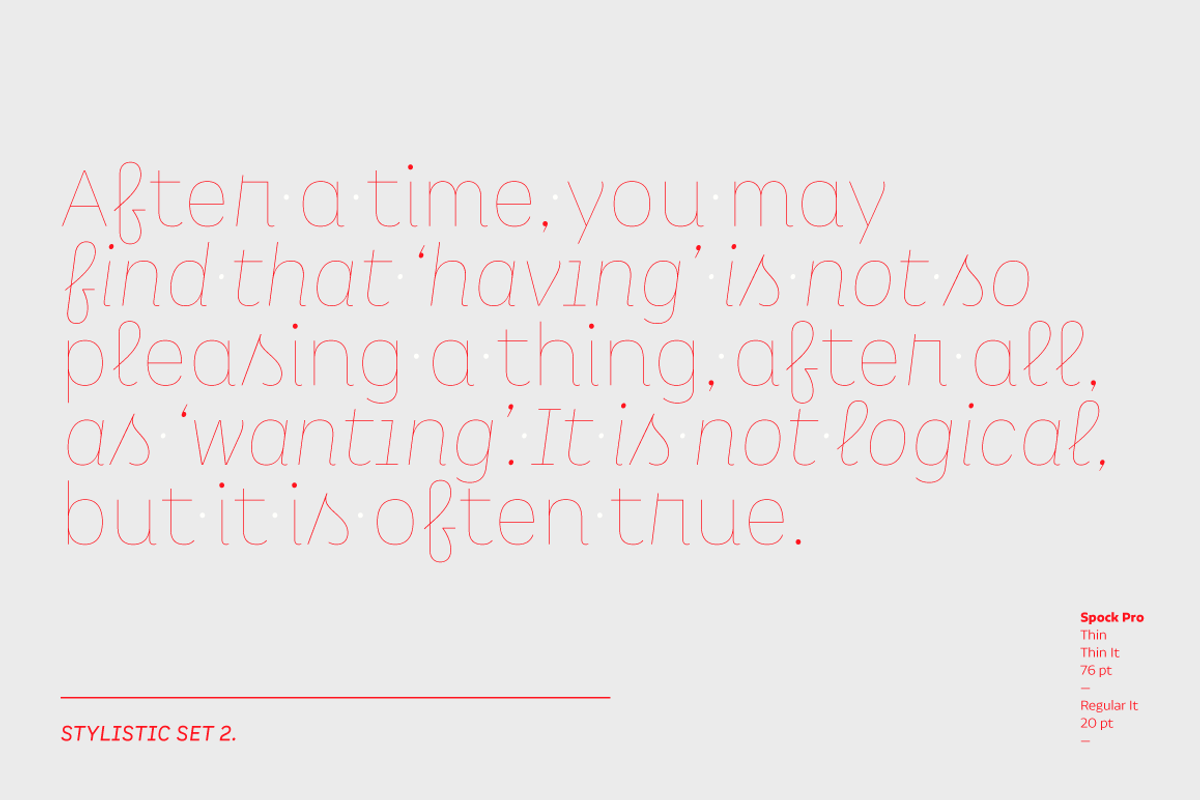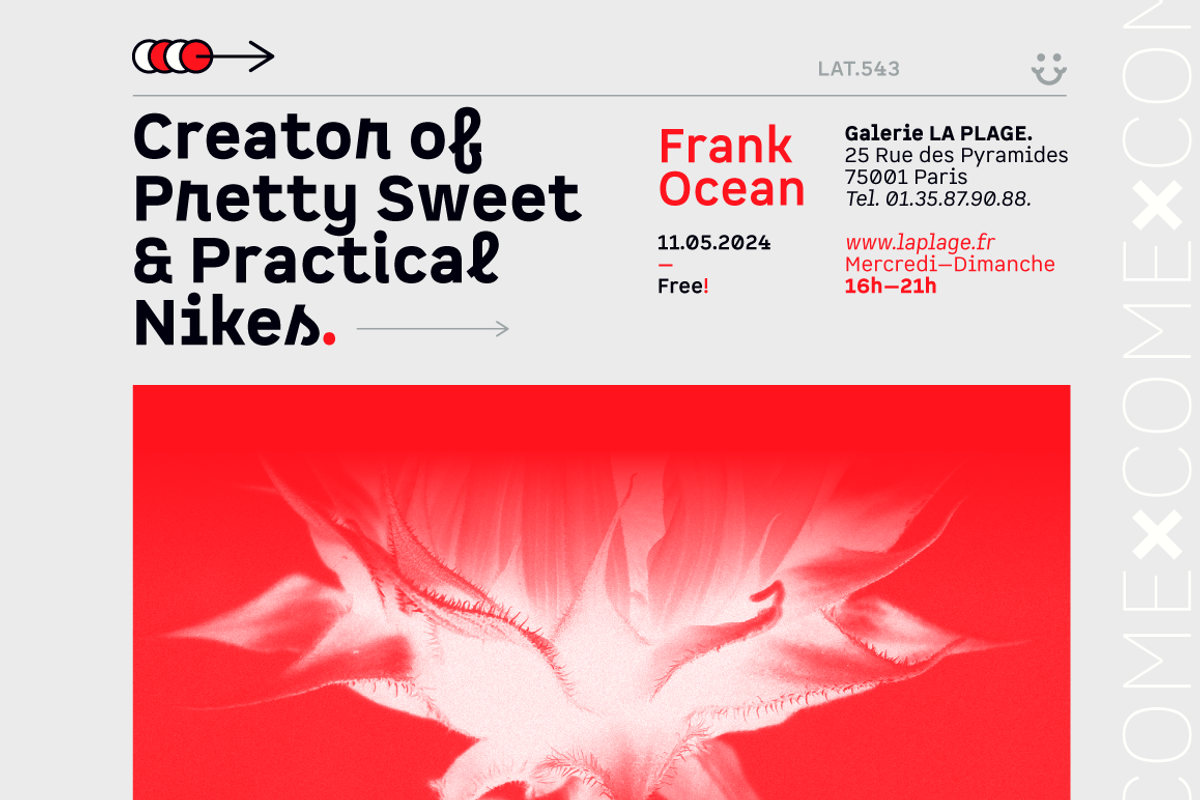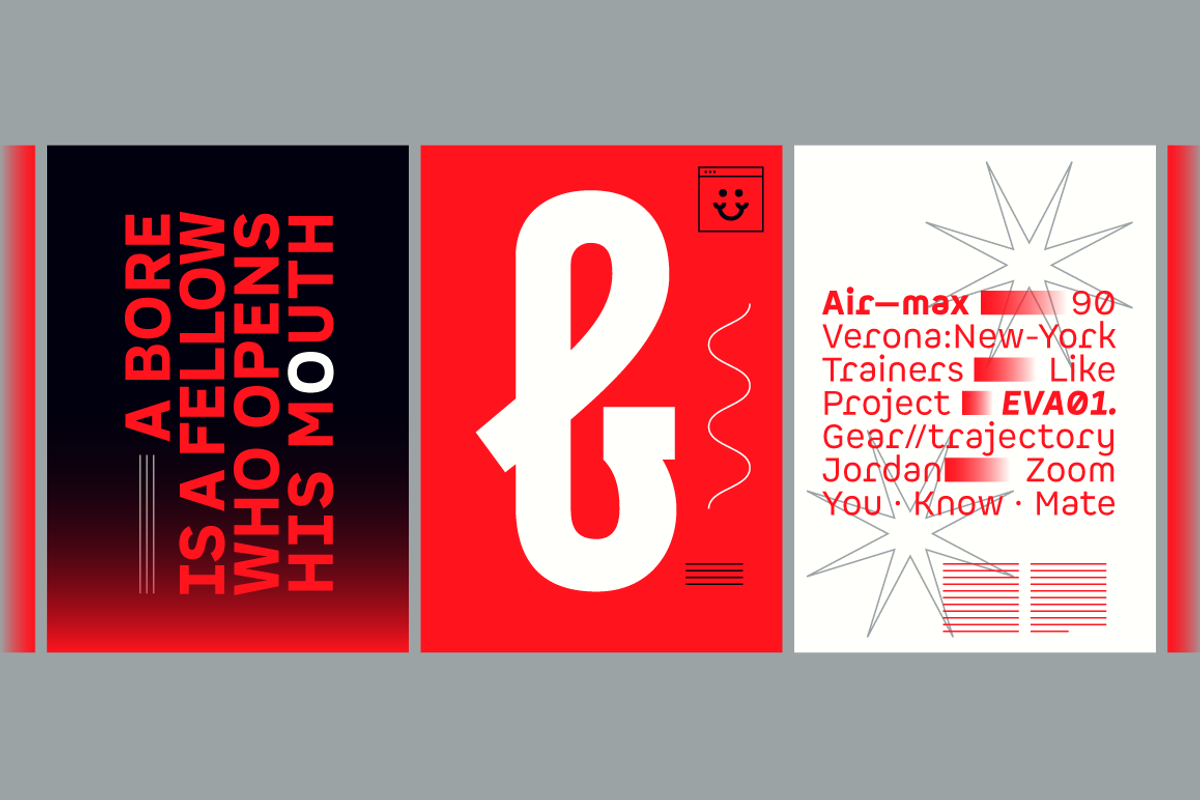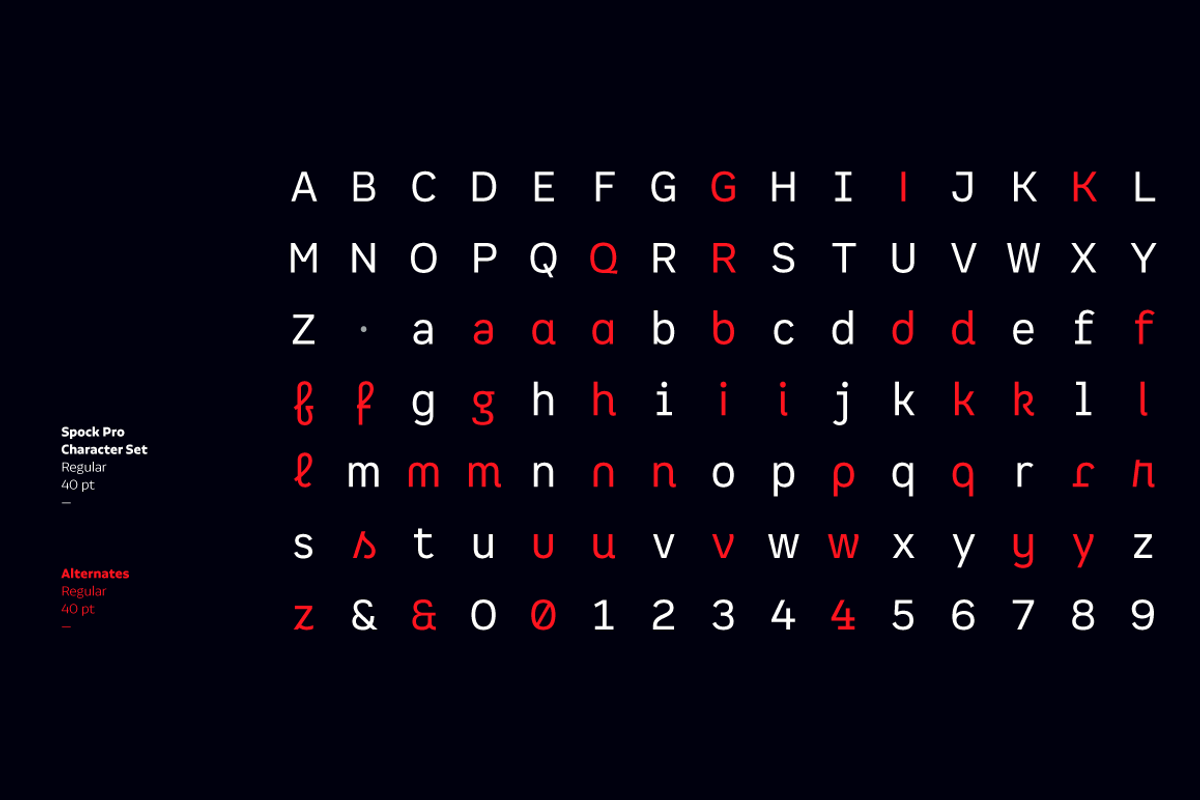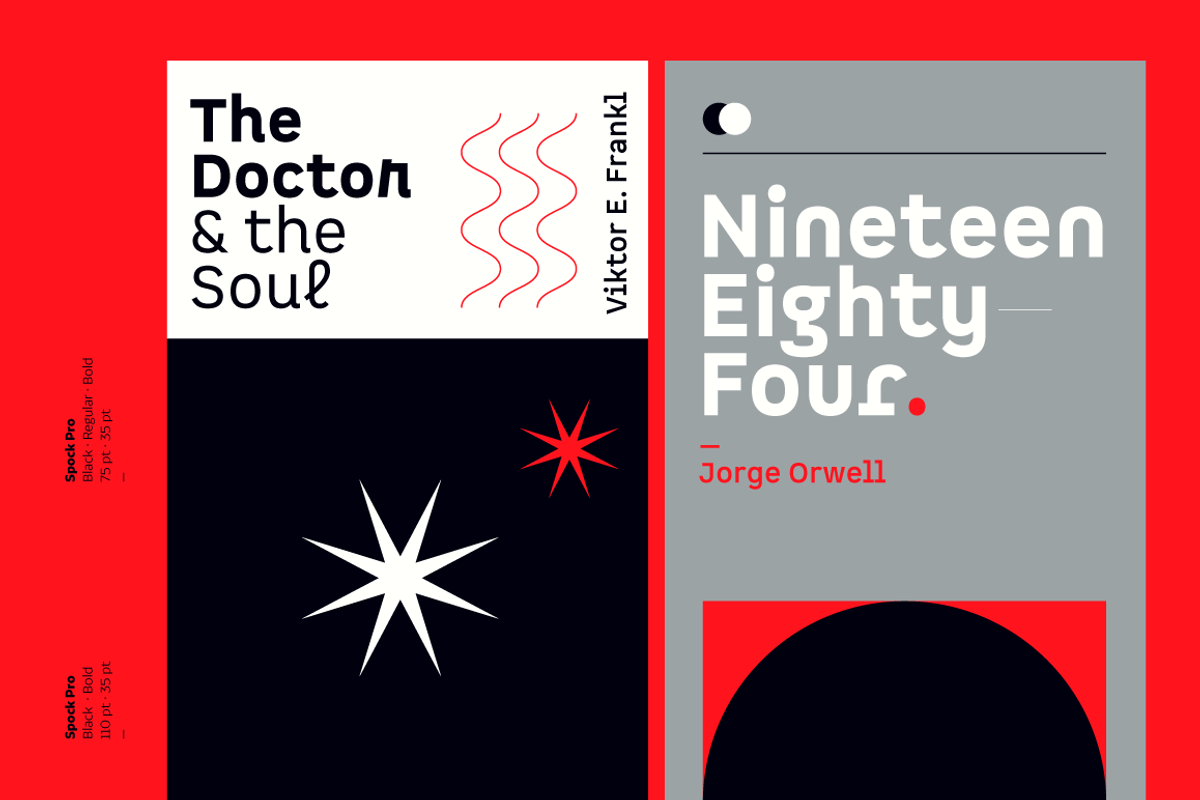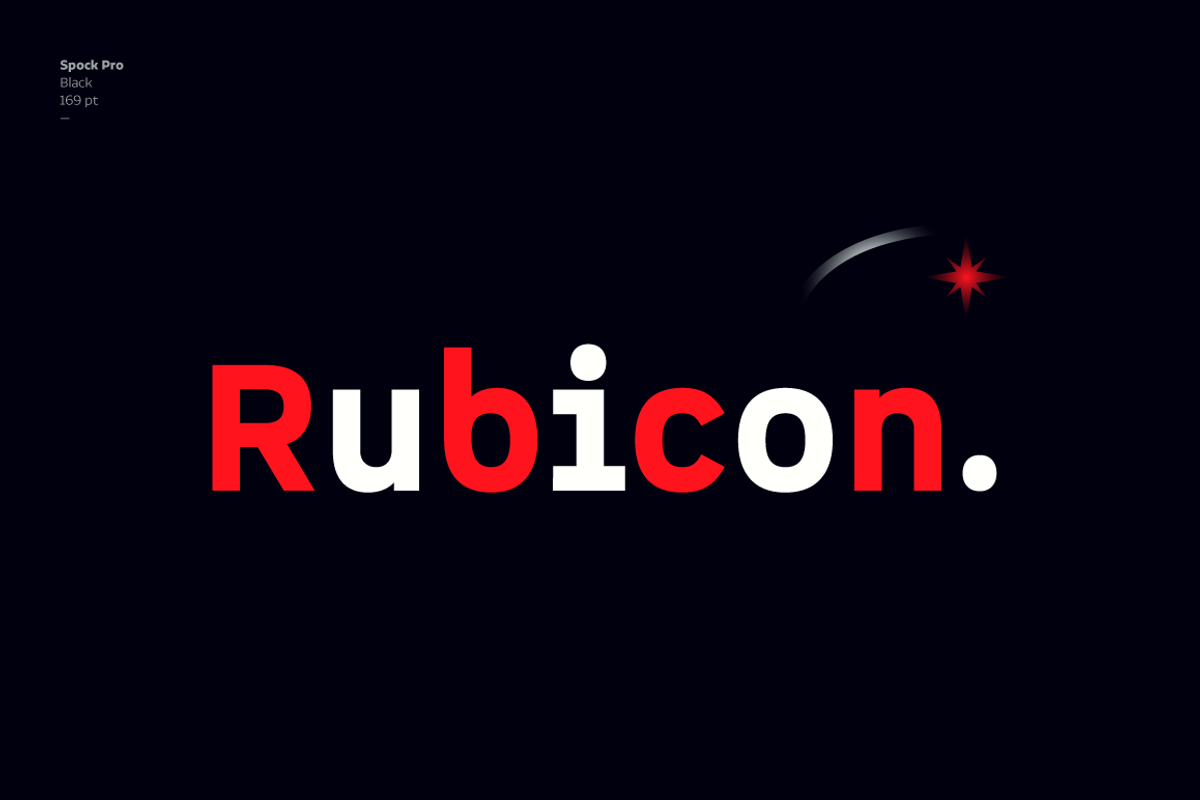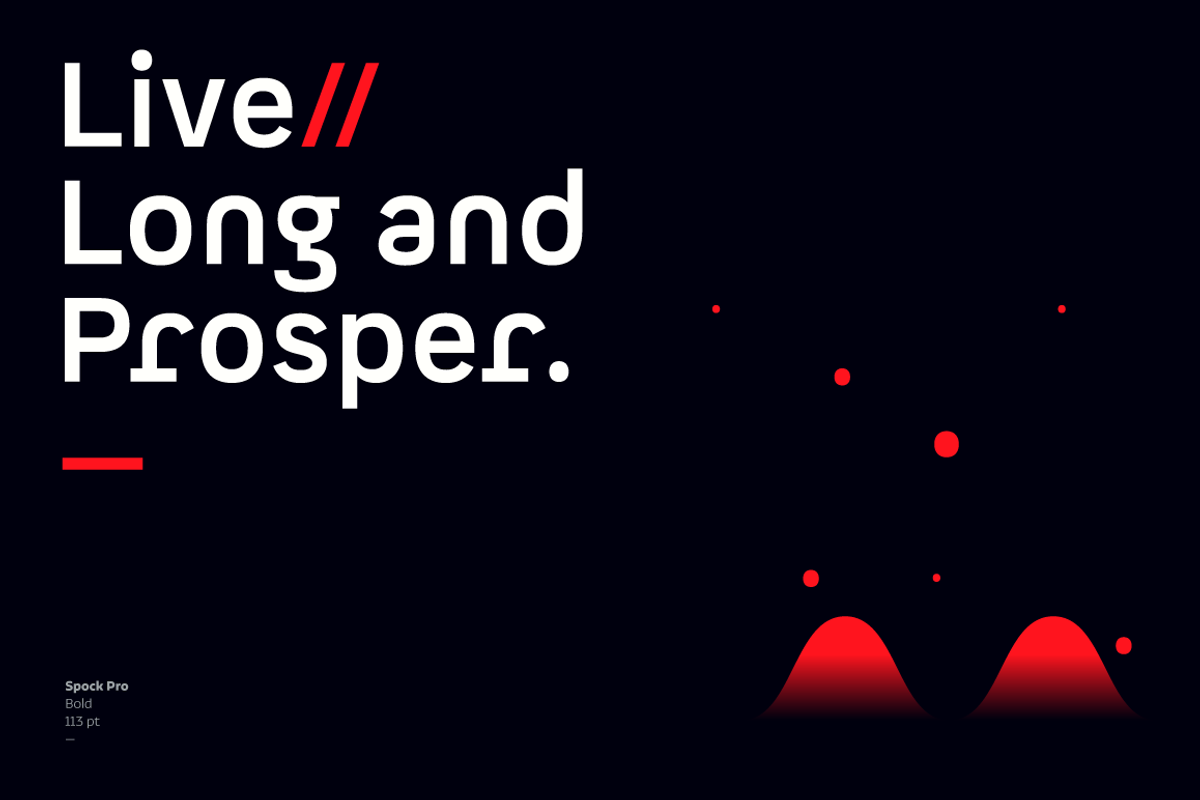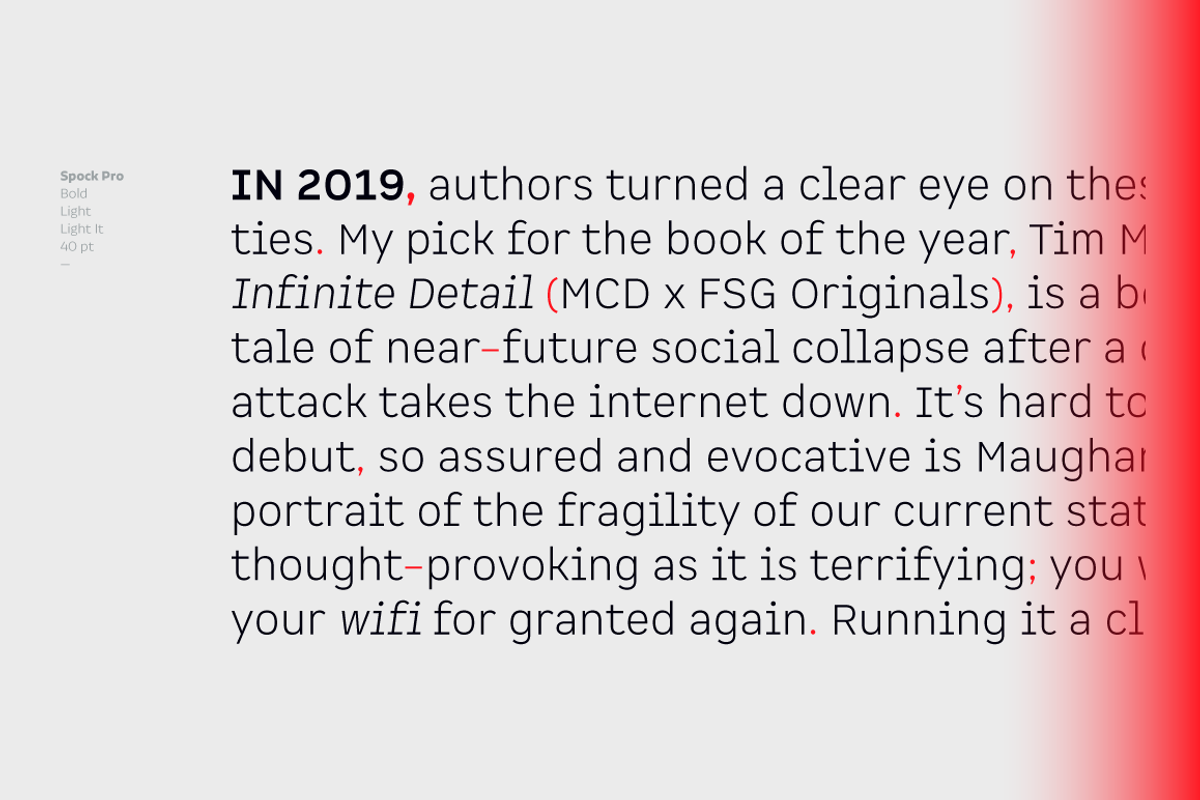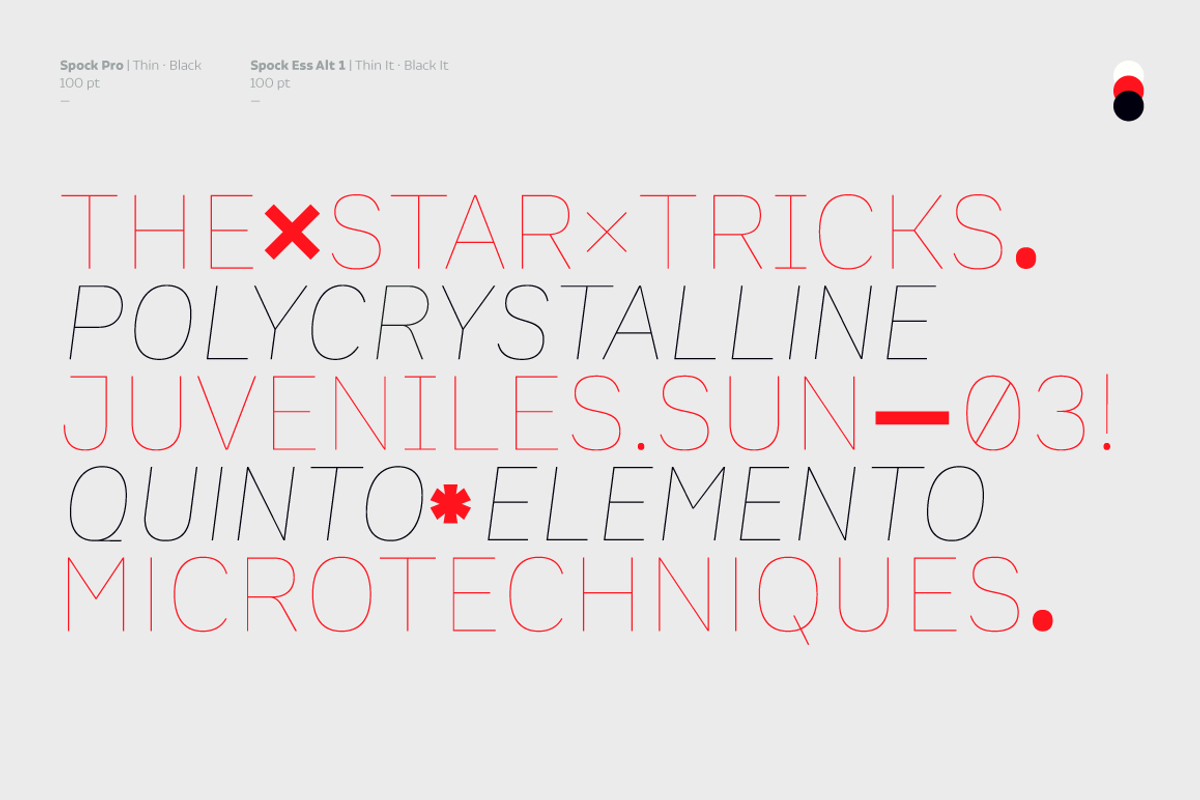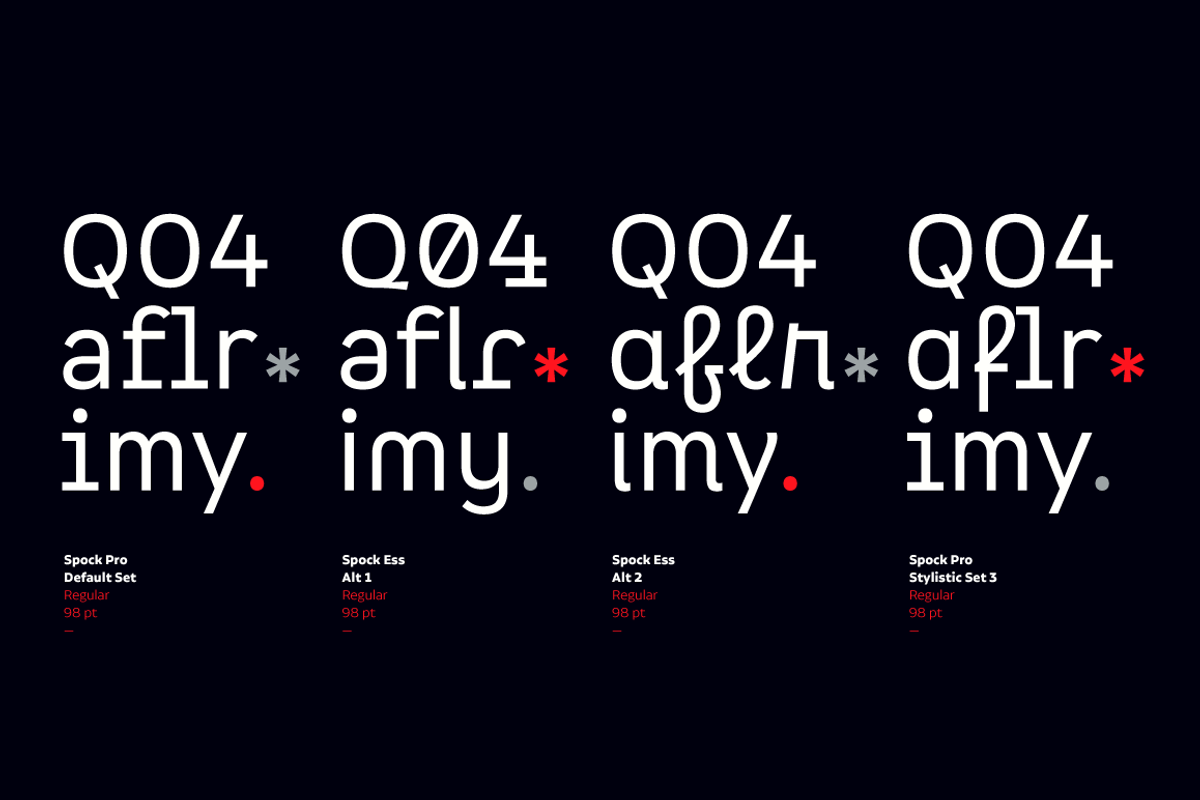
Spock
Spock has a neutral and clean structure but as we explore its OpenType features we will begin to discover a rich variety of alternates—even glyphs with pointed ears. All these combined elements provide a wide range of choices to meet different design needs.
Each of the 4 sub-families consists of 6 weights and matching italics, making Spock a super family of 48 styles. The Pro family set contains 609 characters and it includes a generous number of alternates. The three other Essential sets are composed of alternative glyphs.
Spock is specially suited for advertising as well as editorial and corporate design.